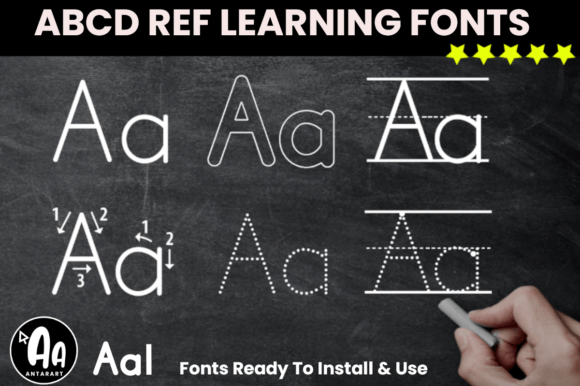
Abcd Tracing Alphabet Letters Bundle Font
These display fonts are based on the D’Nealian Method US school and help you create thousands of worksheets. It is a great learning resource for those who want to learn or teach the print alphabet enjoyably and interactively.